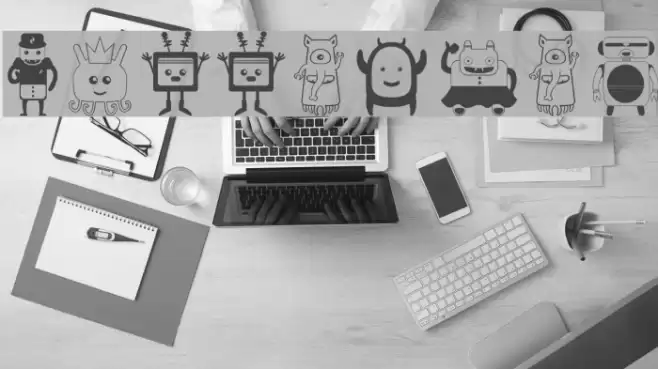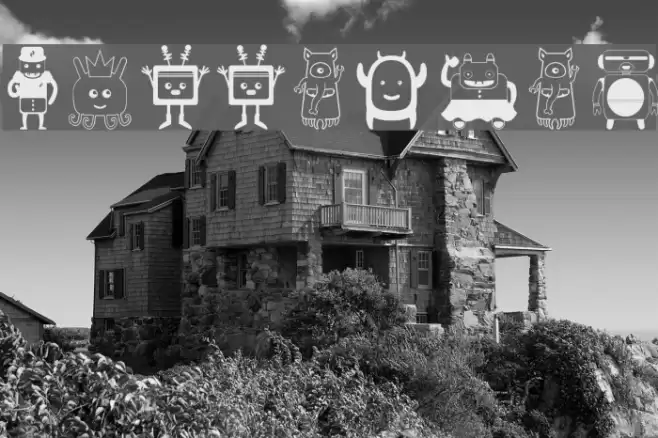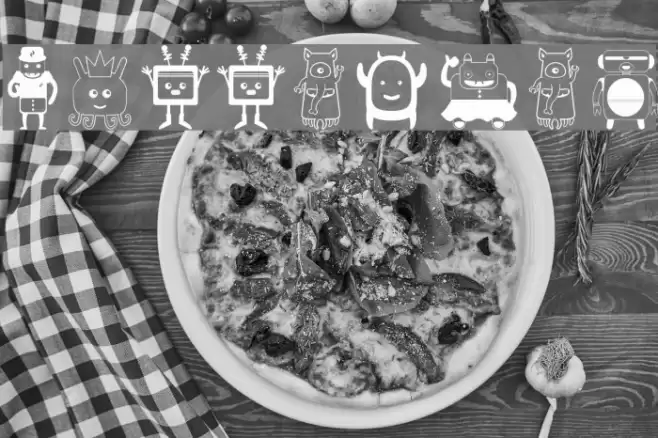
Funny Toys Font
Funny Toys Description
A playful and whimsical collection of cartoon monster and robot characters, each letter and symbol represented by a unique, hand-drawn creature with bold outlines and varying fill styles.
A decorative font made up of quirky cartoon monsters and robots from Dingbats fonts.
- Proposed Projects: Children’s books, toy packaging, party invitations, playful branding, educational materials.
- Overall Style: Playful, Whimsical, Decorative
- Use Case: Headlines, Logos, Posters, Children’s materials